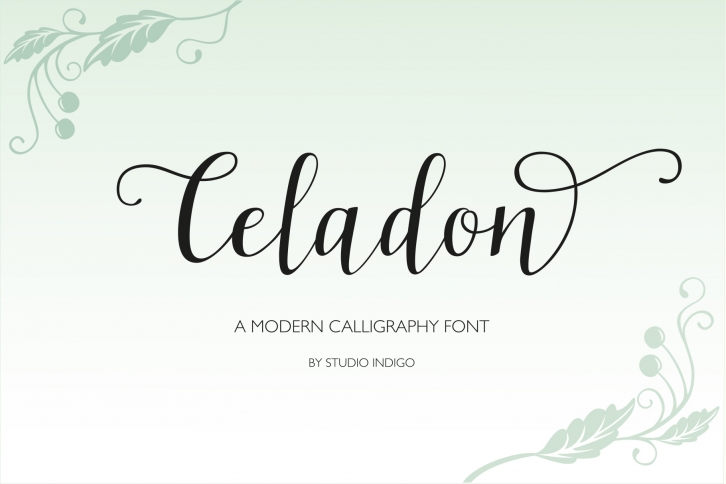
Celadon is a beautiful font that was designed by Studio Indigo. It's a great choice for designers and creatives who need such a font. It was released on August 14, 2018 and the file size is 1.9 MB. Celadon may give a more youthful, expressive and casual look to your project. It is a very beautiful, refined, elegant, and high-quality font.